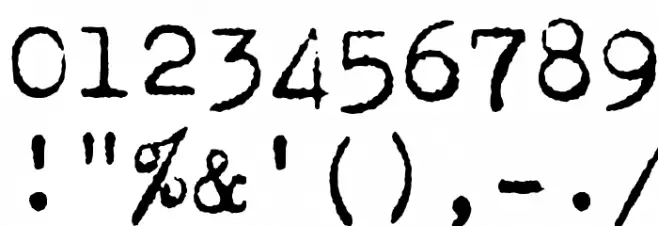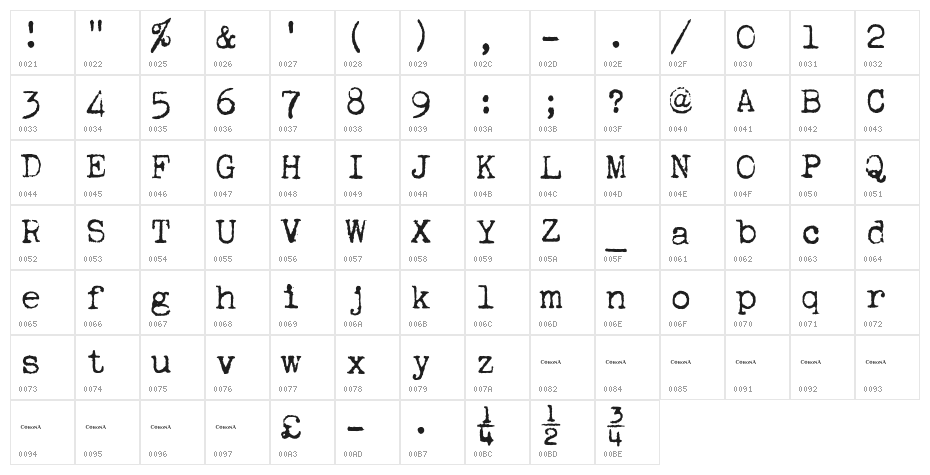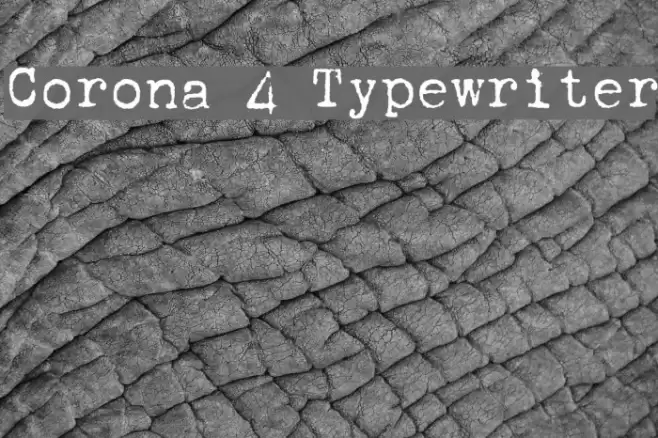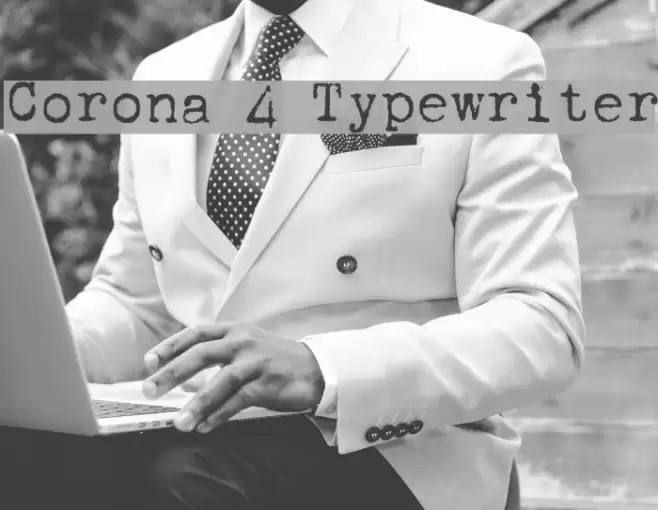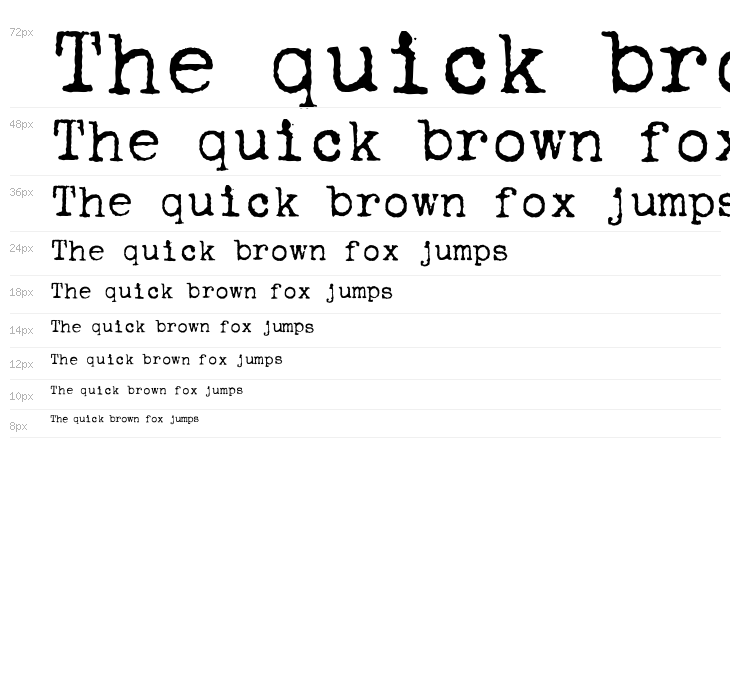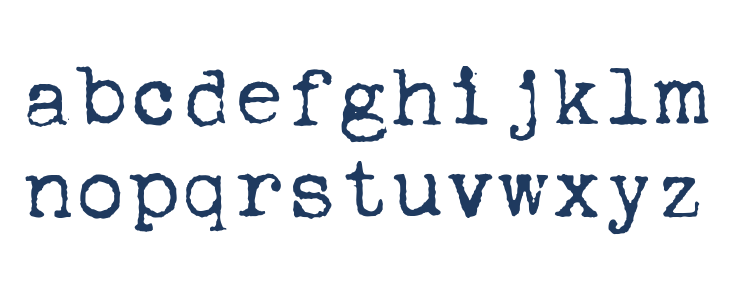
Corona 4 Typewriter Font
Corona 4 Typewriter Description
This typewriter-style font features a classic, vintage aesthetic reminiscent of old mechanical typewriters. Each character is slightly irregular, adding to its authentic, worn look. The letters have a monospaced design, ensuring uniform spacing that is characteristic of traditional typewriter fonts. The edges of the characters are slightly rough, giving a textured appearance that enhances its retro charm. This font is perfect for projects that require a nostalgic or historical feel, such as vintage-themed designs, retro posters, or any creative work that aims to evoke a sense of the past.
| Proposed Projects | Ideal for vintage-themed designs, retro posters, historical documents, and creative projects seeking a nostalgic feel. |